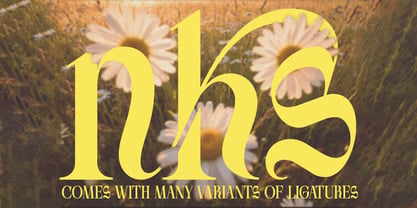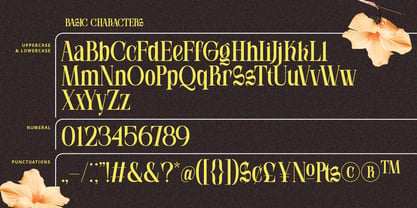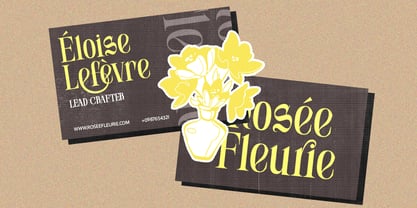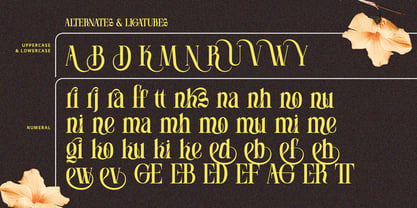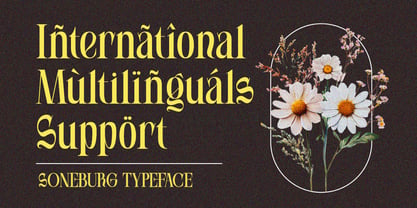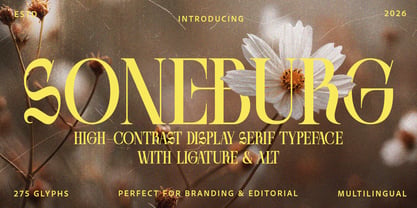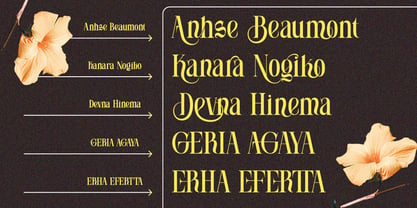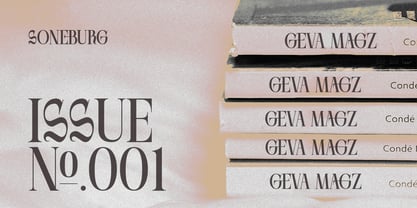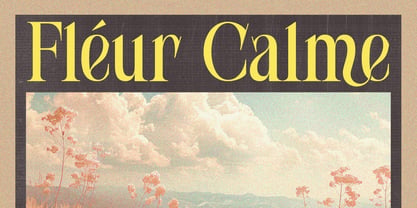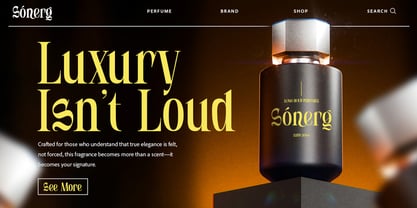
Soneburg
by Eko Bimantara
Soneburg is a refined high-contrast display serif that blends timeless elegance with expressive contemporary character. Designed with graceful curves, razor-sharp serifs, and sophisticated proportions, this typeface delivers a luxurious visual presence ideal for premium branding, editorial headlines, fashion campaigns, packaging, and artistic typography. Its distinctive ligatures and alternate characters add a unique rhythmic flow, allowing designers to craft striking compositions with elevated personality and style. Soneburg balances classic serif sophistication with modern dramatic flair, making it a perfect choice for projects that demand beauty, confidence, and high-end visual impact.